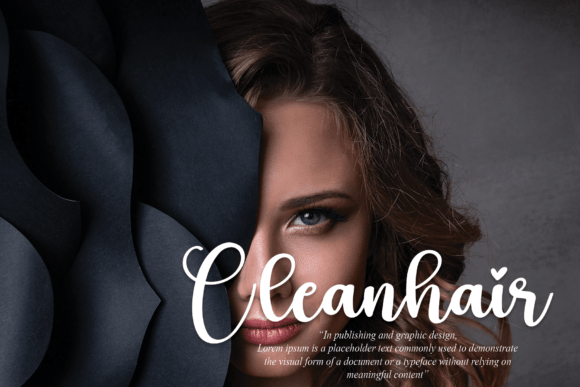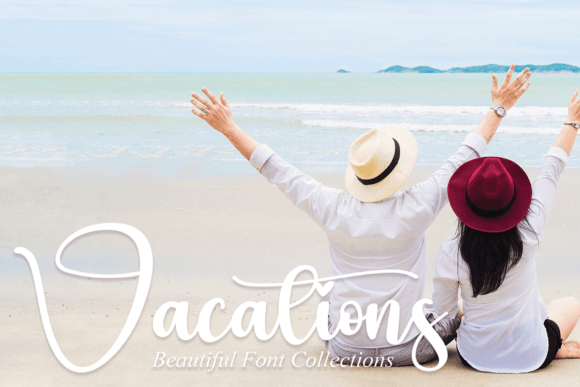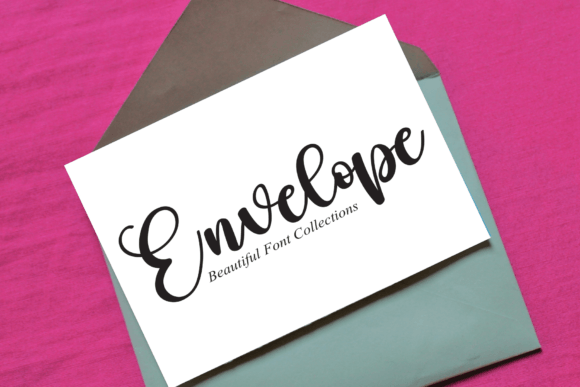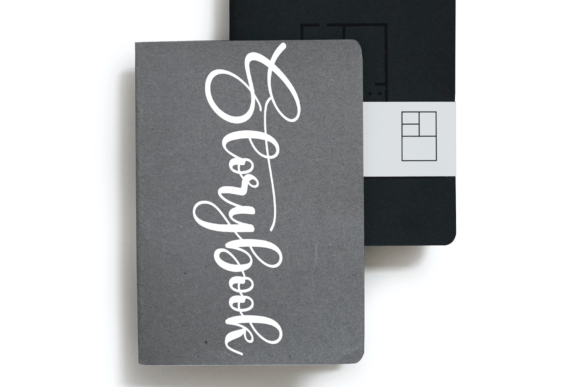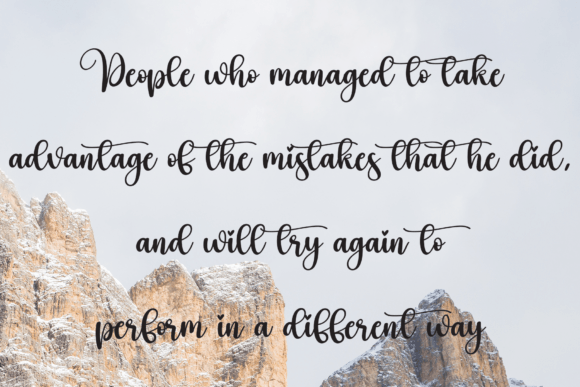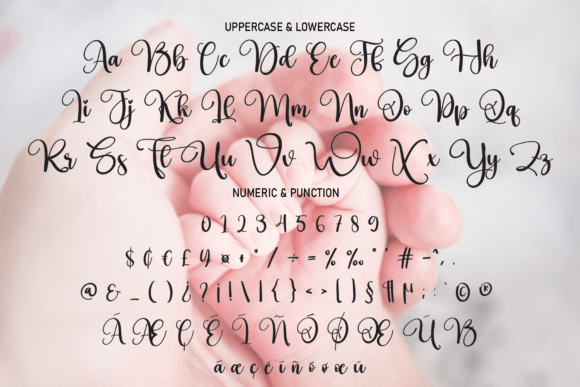
The Sweet Charm of Babe Font: A Designer’s Delight
I’ll never forget the time I was working on a wedding invitation project, and my client asked for a font that was ” elegant, yet playful; romantic, yet not too fancy.” I scoured the internet, tried out dozens of fonts, but nothing seemed to fit the bill. That was until I stumbled upon Babe Font. This sweet and cursive handwritten font has been a game-changer for me, and I’m excited to share its charm with you! 💕
An Honest Review of Babe Font
- 💖 The elegant, flowing script that adds a touch of romance to any design
- 🎉 The versatility – it works beautifully for branding, logos, wedding materials, greeting cards, and more
- 👍 The perfect balance of fancy and casual, making it suitable for a wide range of projects
- 💫 The font’s sweetness and charm, which can instantly elevate the tone of your design
While Babe Font is an excellent choice, there are a few things to keep in mind:
- 🤔 The font may not be the best choice for very long blocks of text, as it can be a bit ornate
- ⚠️ Some characters may not work well in all design programs or platforms, so be sure to test it out before committing
The Backstory of Babe Font
Babe Font was designed with the intention of creating a beautiful, elegant script that could be used for a wide range of design projects. The designer wanted to create a font that was both romantic and playful, with a touch of whimsy. The result is a font that is perfect for wedding invitations, branding, and more.
Q: What is Babe Font best used for?
A: Babe Font is perfect for a variety of design projects, including branding, logos, wedding materials, greeting cards, and more.
Q: Is Babe Font easy to read?
A: Yes, Babe Font is a clear and legible font, making it suitable for use in a variety of contexts.